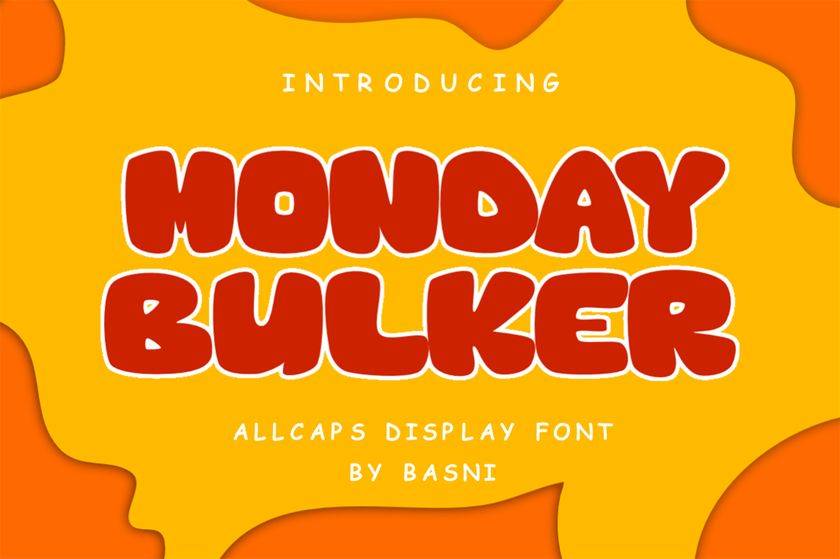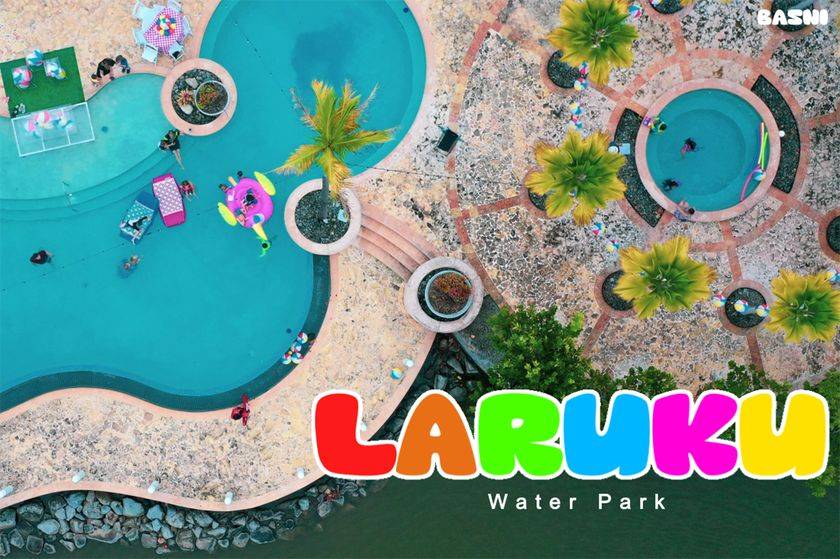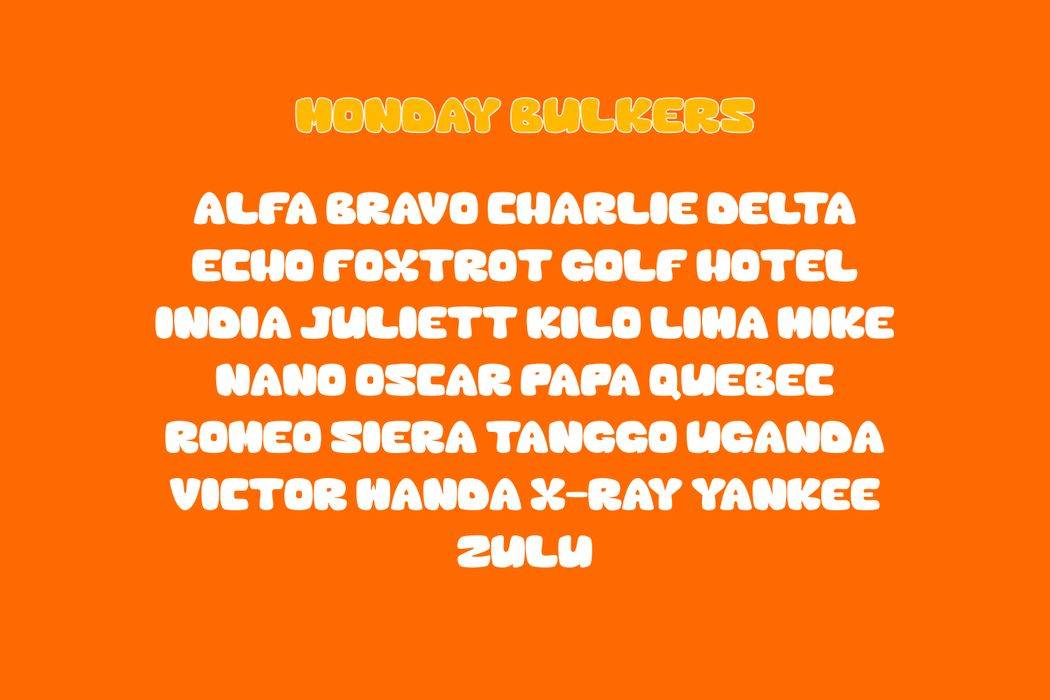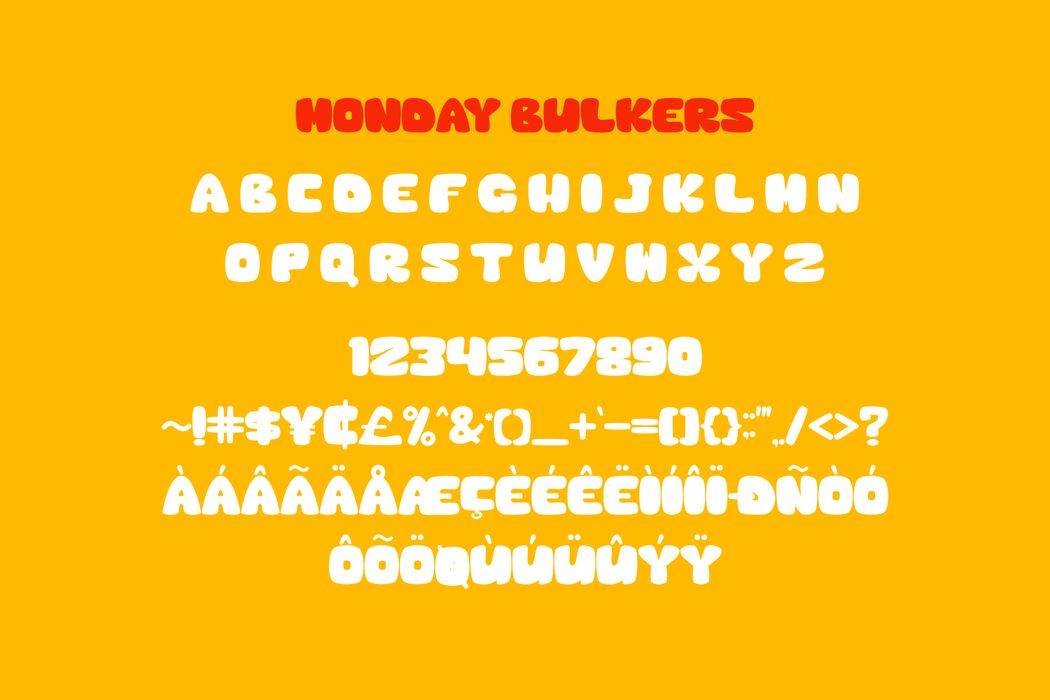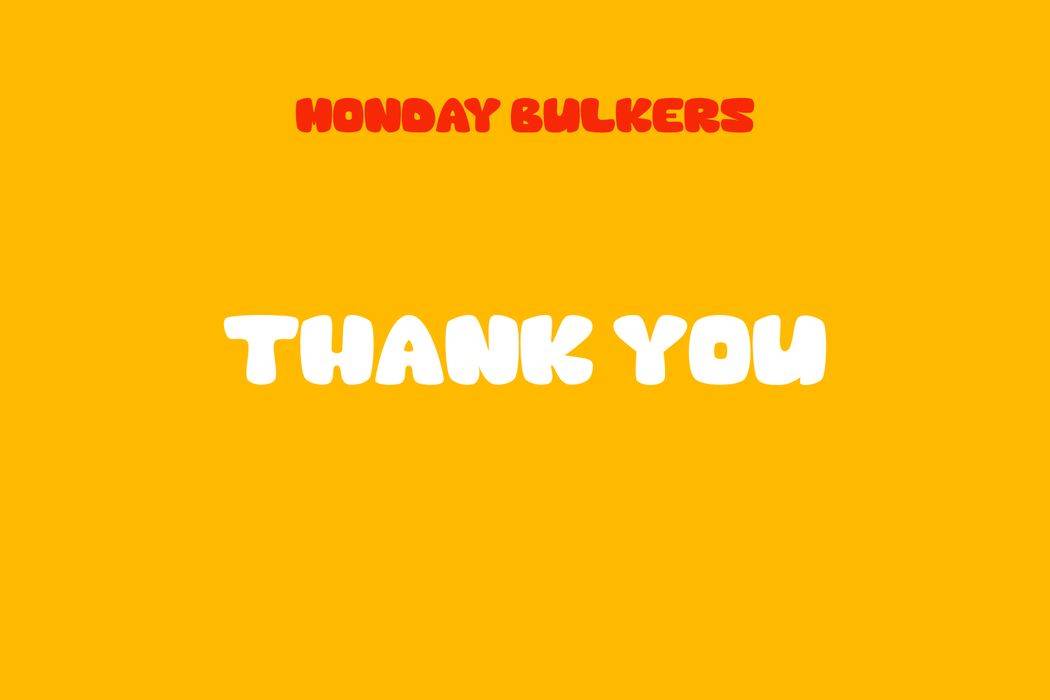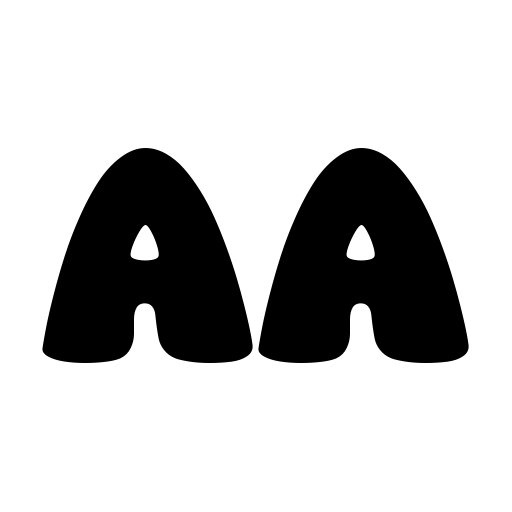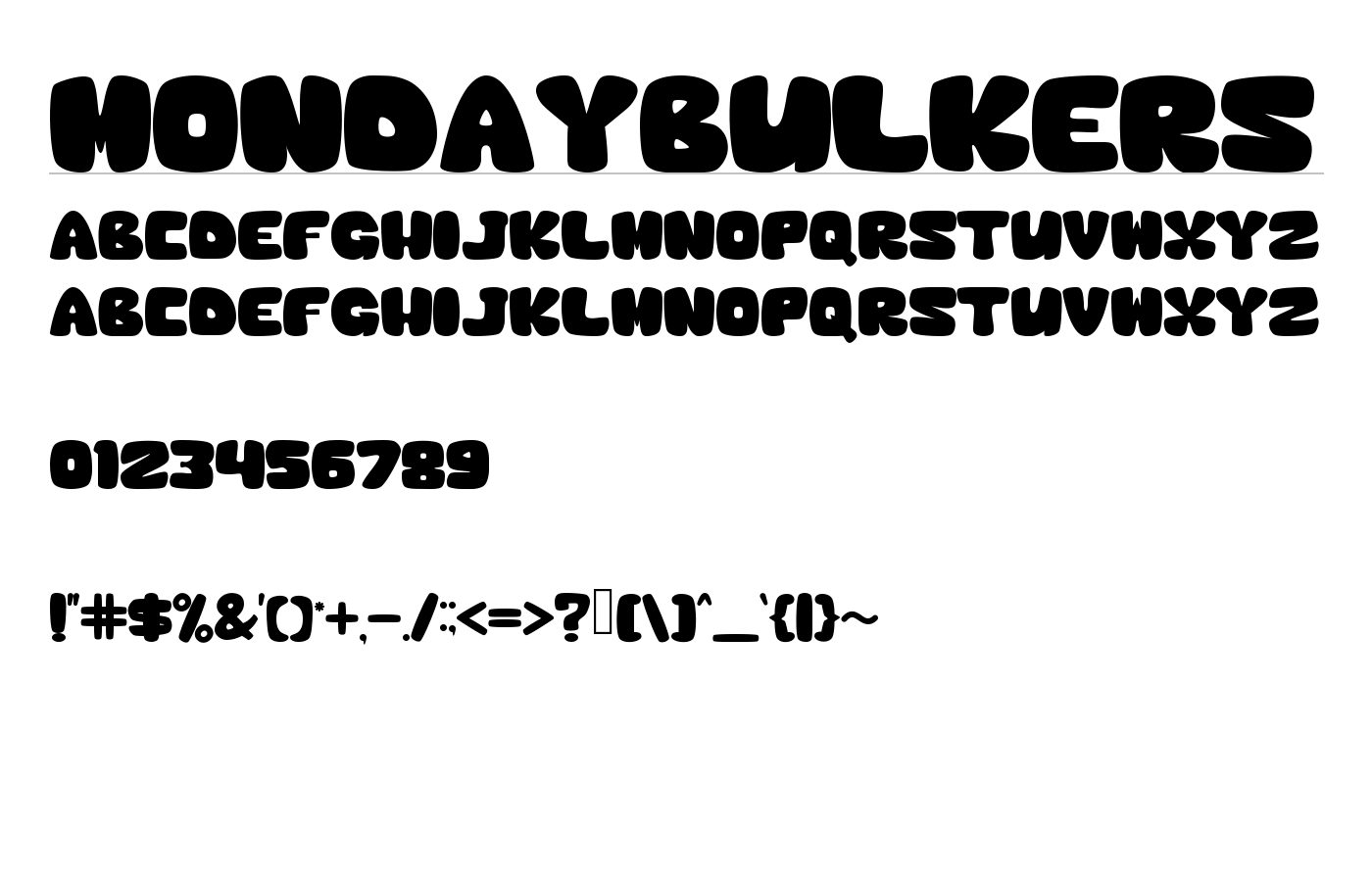
Monday Bulker is a bold, playful sans serif font characterized by its rounded, chunky letterforms and a friendly, approachable style. With its heavy weight and tight spacing, it creates a strong visual impact, making it perfect for headlines, logos, and designs that aim to convey fun and energy. This font works especially well in casual branding, posters, and any display use where a lively and informal vibe is desired.
Monday Bulker Font
About Monday Bulker Font